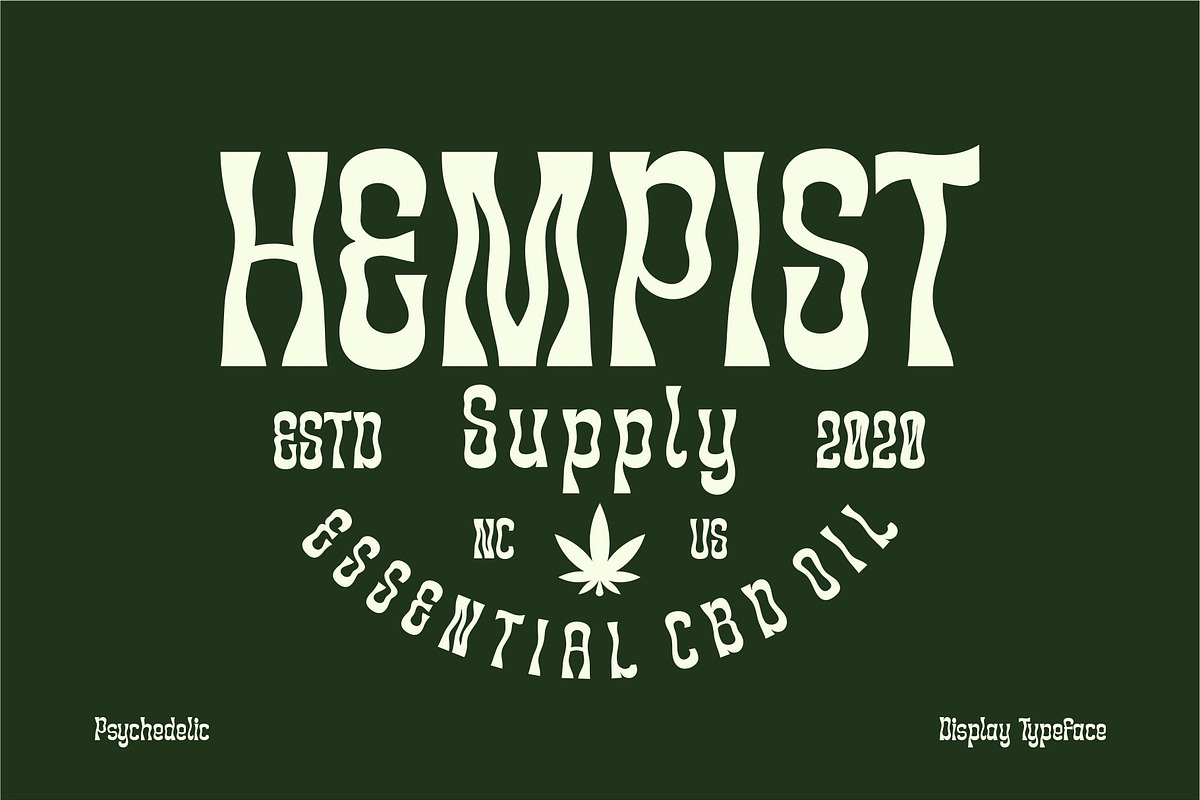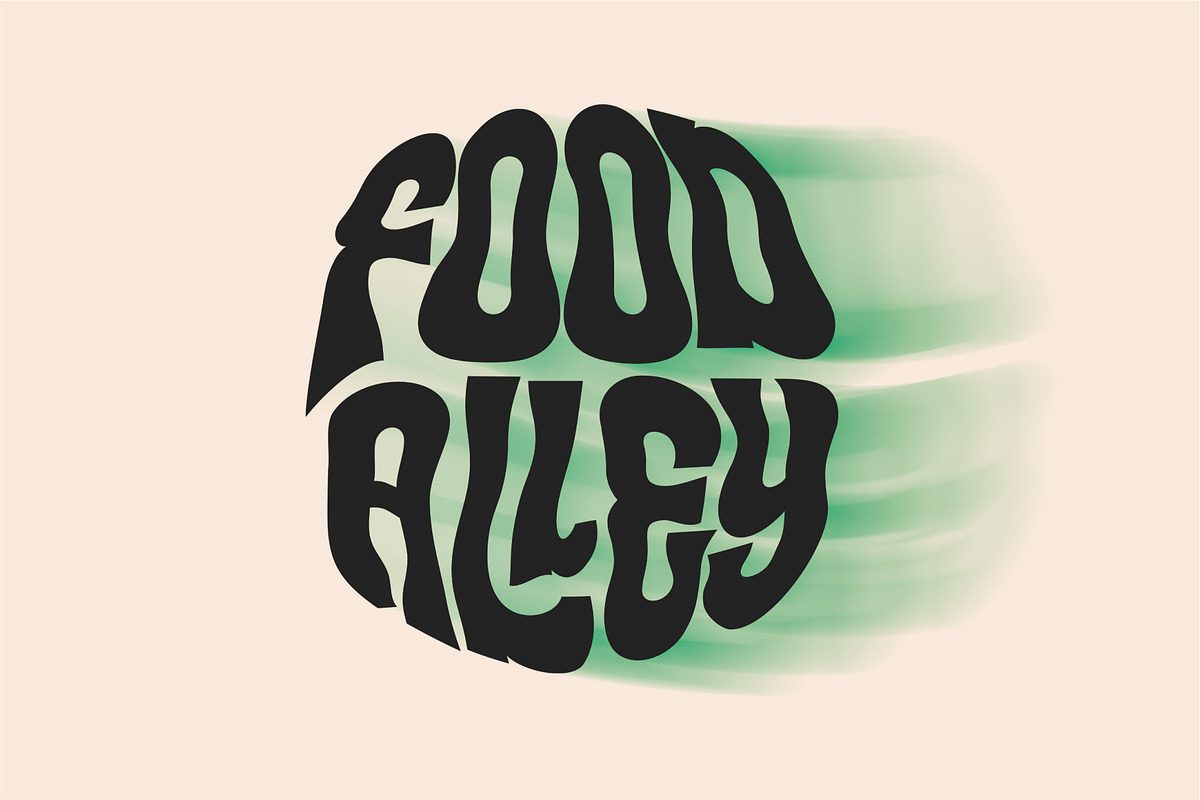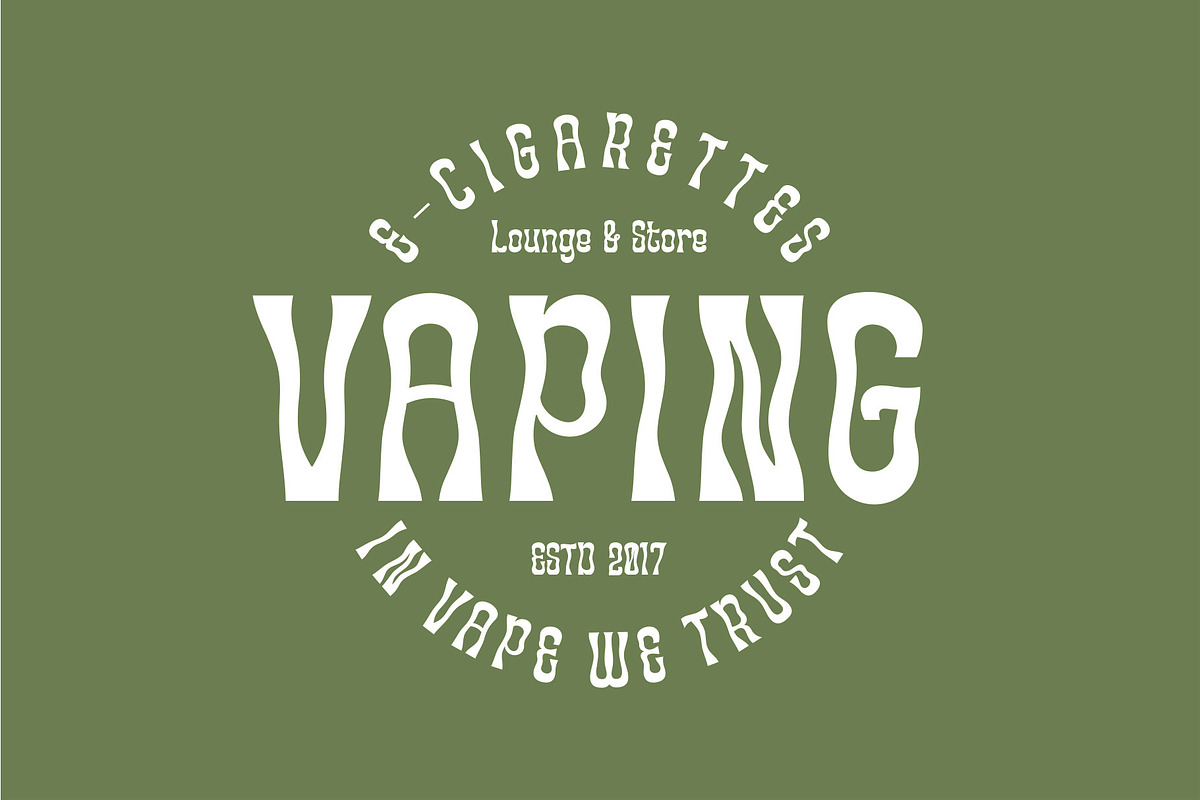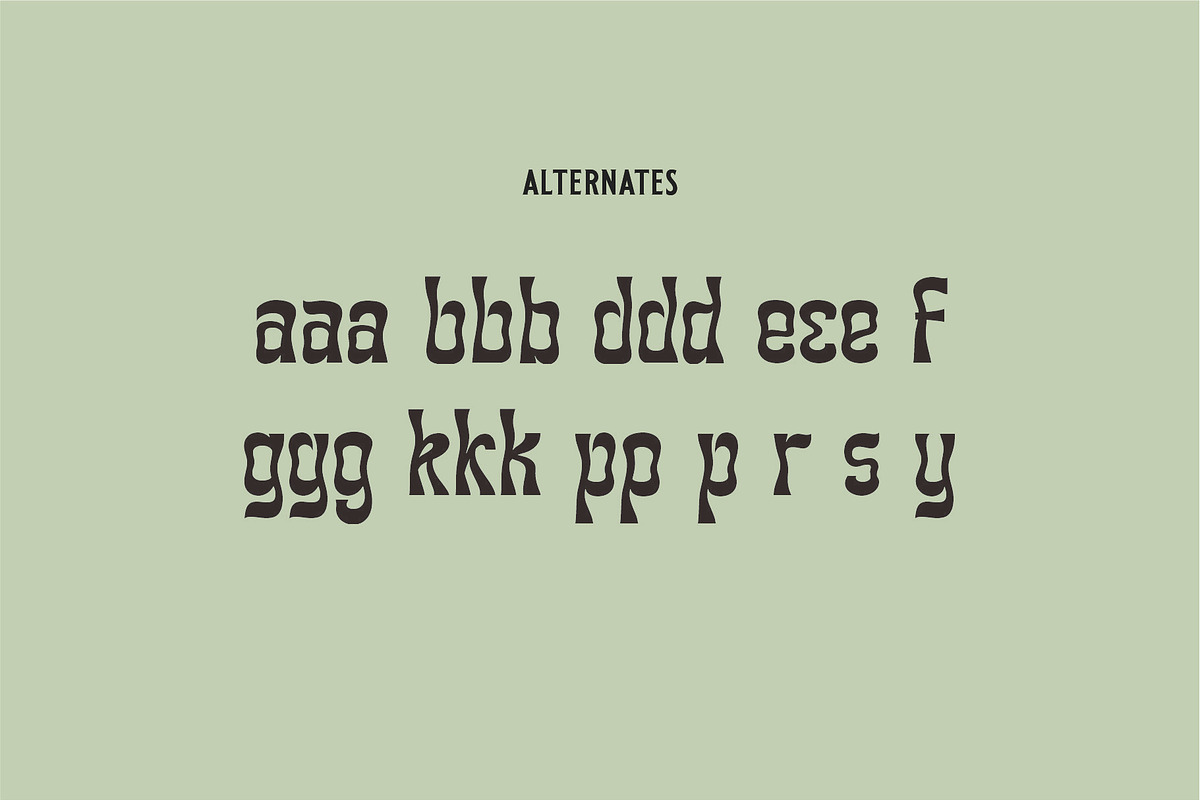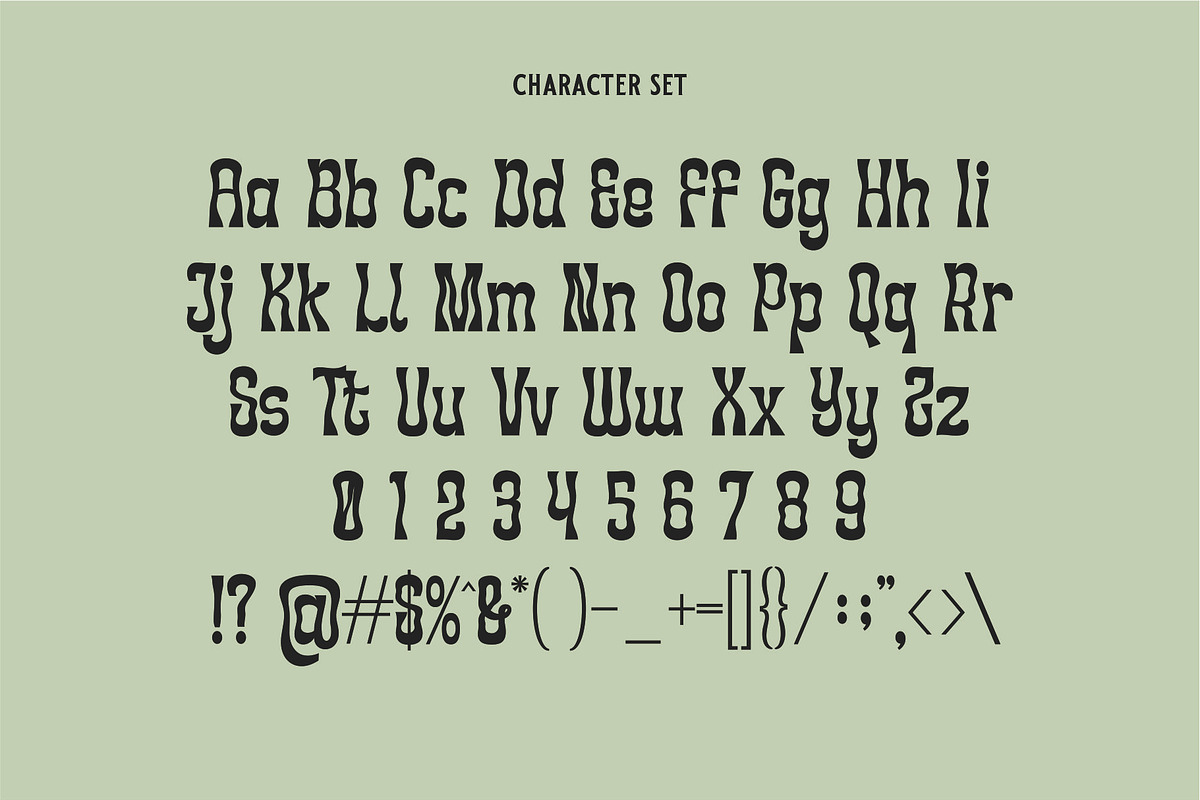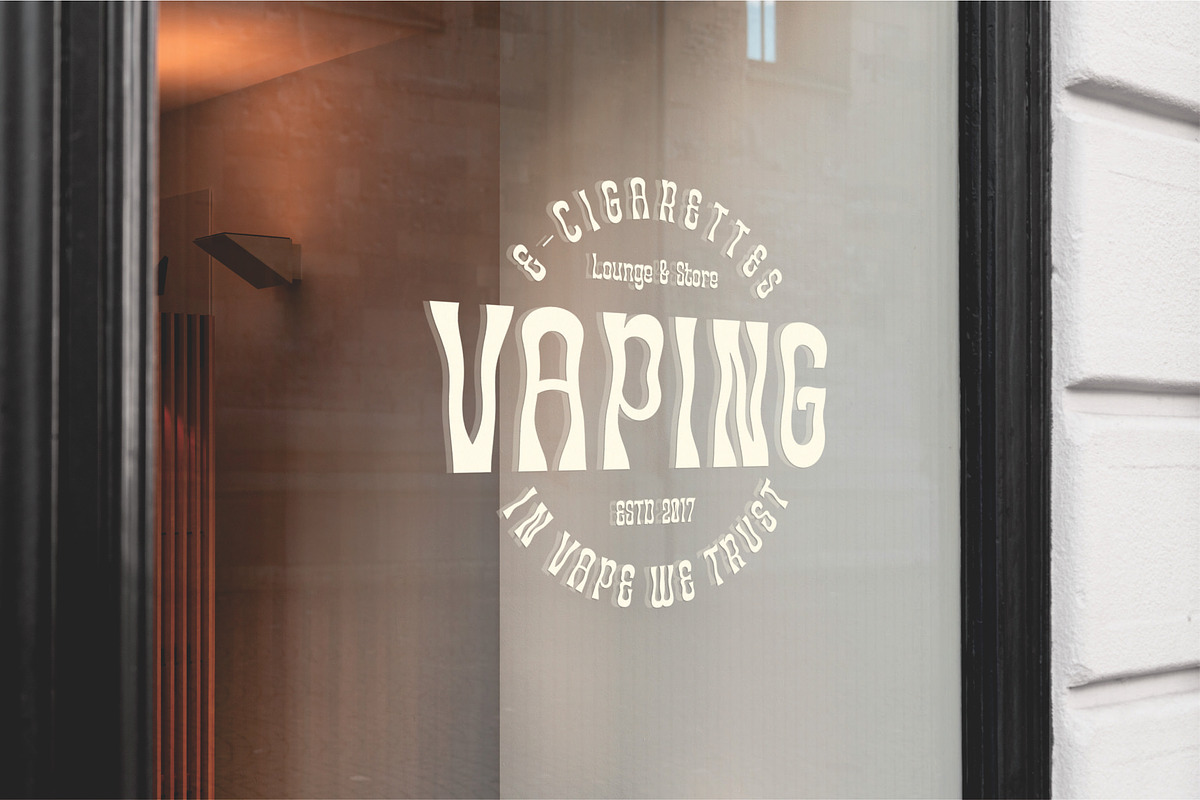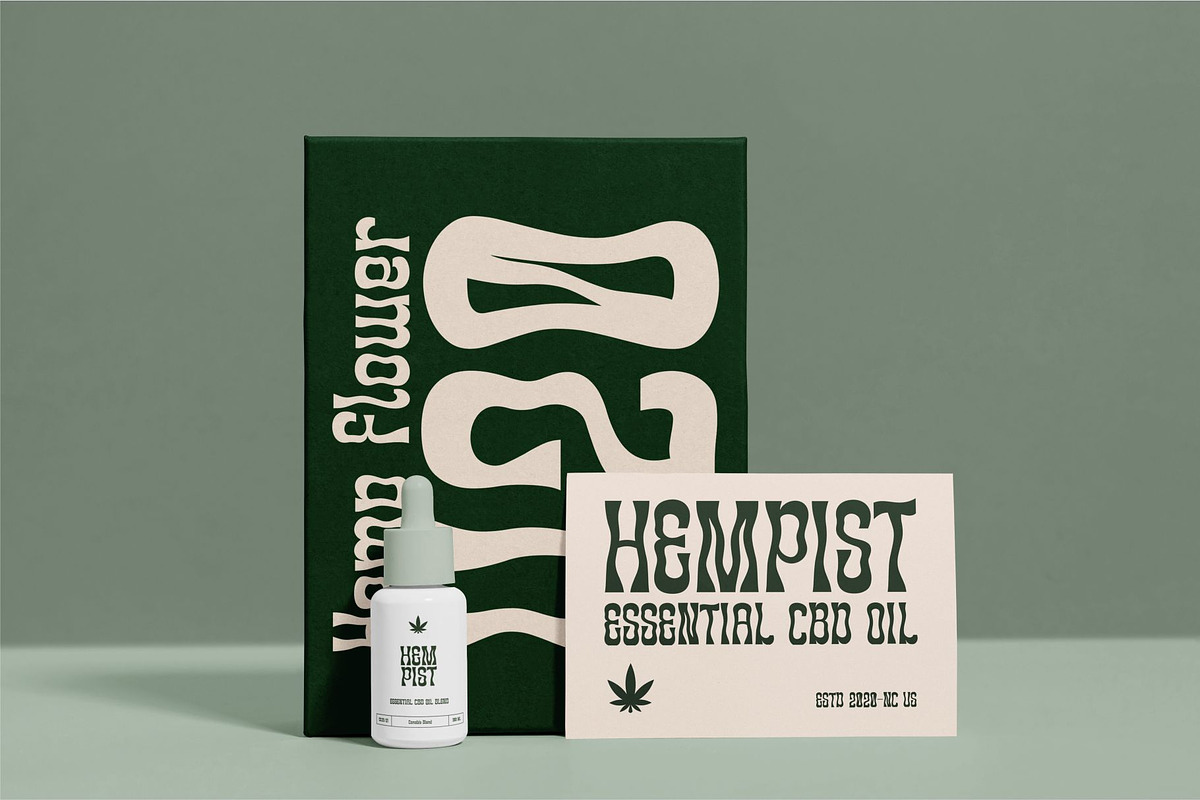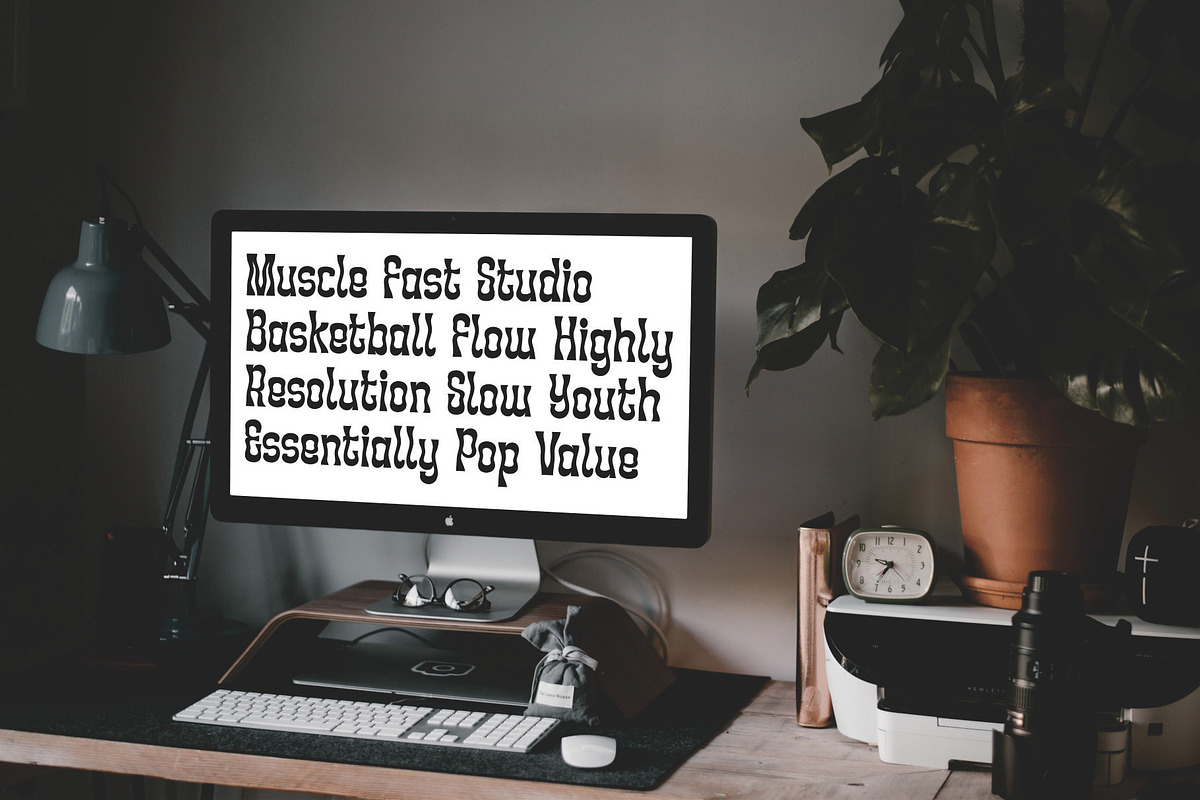
HEMPIST - Psychedelic Typeface
Hempist has a unique style with stylistic, alternates, and supports multilingual languages. This typeface is ideal for greeting card, packaging, brand identity, poster, album covers, movies, and more.